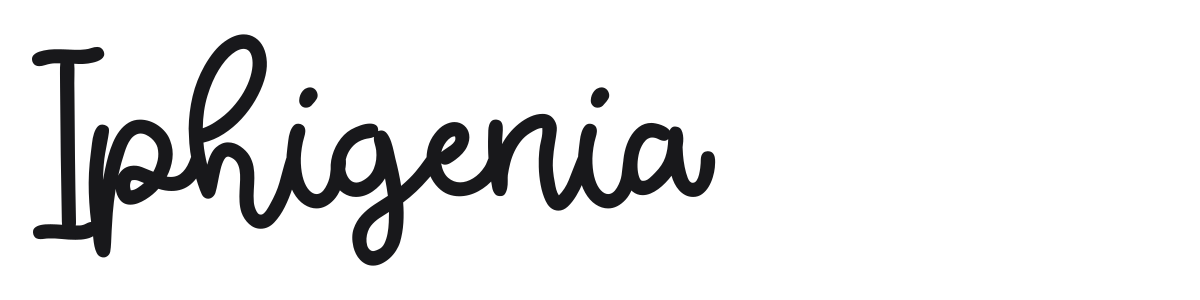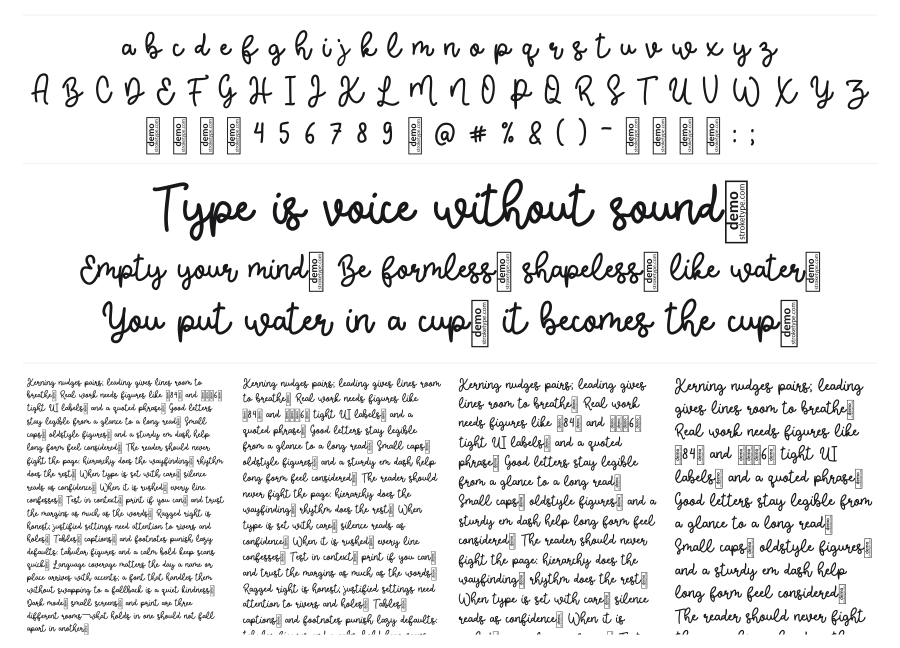
Iphigenia
Iphigenia is a flowing connected casual script with smooth, looping strokes and a confident hand-lettered feel. The near-monoweight construction and generous rounded forms keep it highly readable at display sizes while retaining an approachable, personal warmth. It suits branding, packaging, and any context that calls for a friendly, artisanal touch.